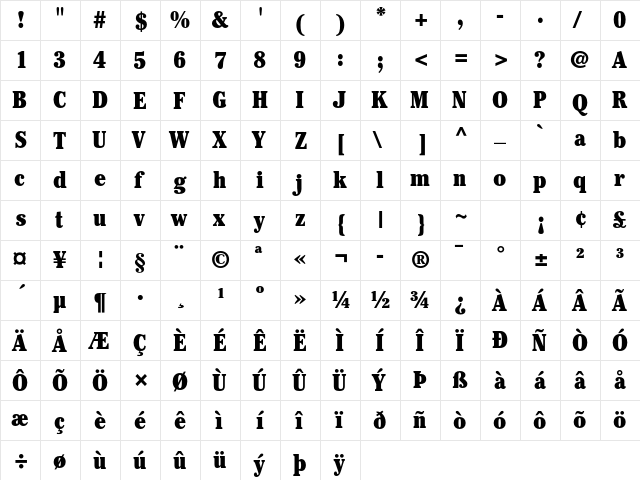
ITC Cheltenham Std Ultra Condensed
| Designer | Tony Stan |
Design Context for ITC Cheltenham Std Typeface
ITC Cheltenham Std offers clean, dependable letterforms without strong stylistic allegiance, making it a practical choice for designers who need flexibility. The condensed width makes it efficient for tight spaces without sacrificing legibility.